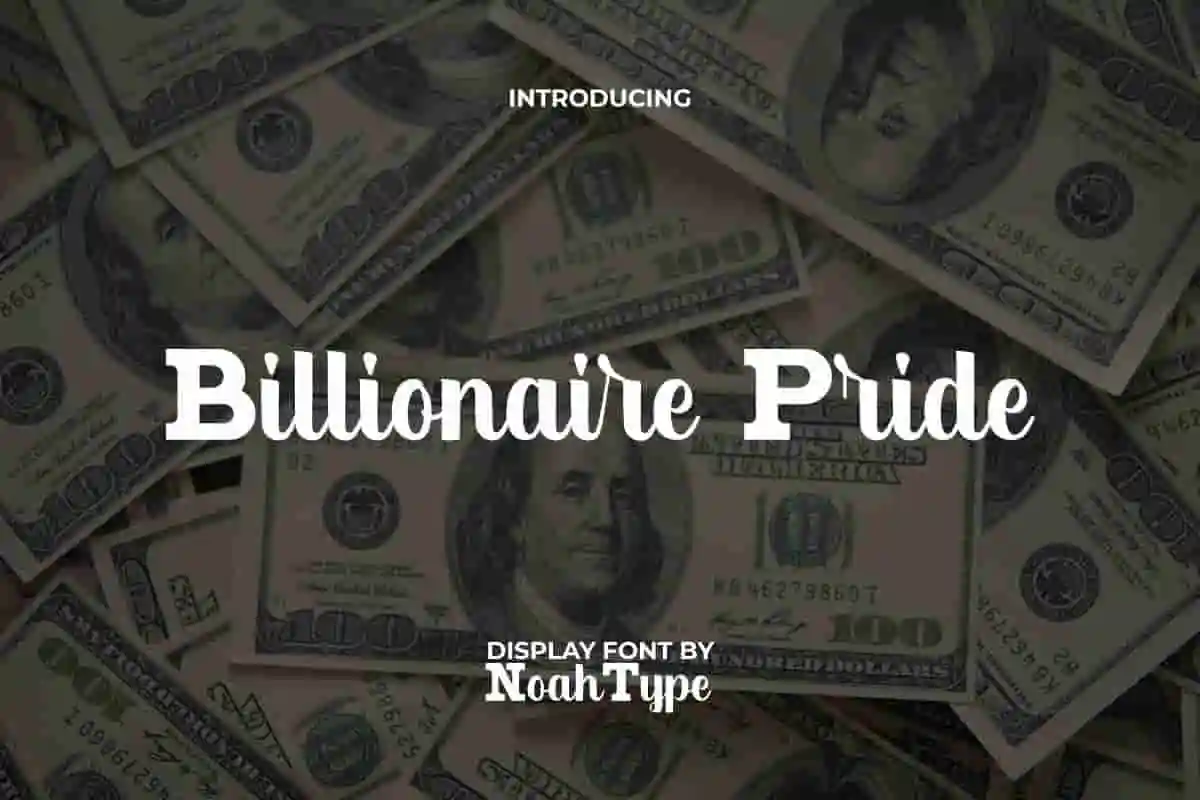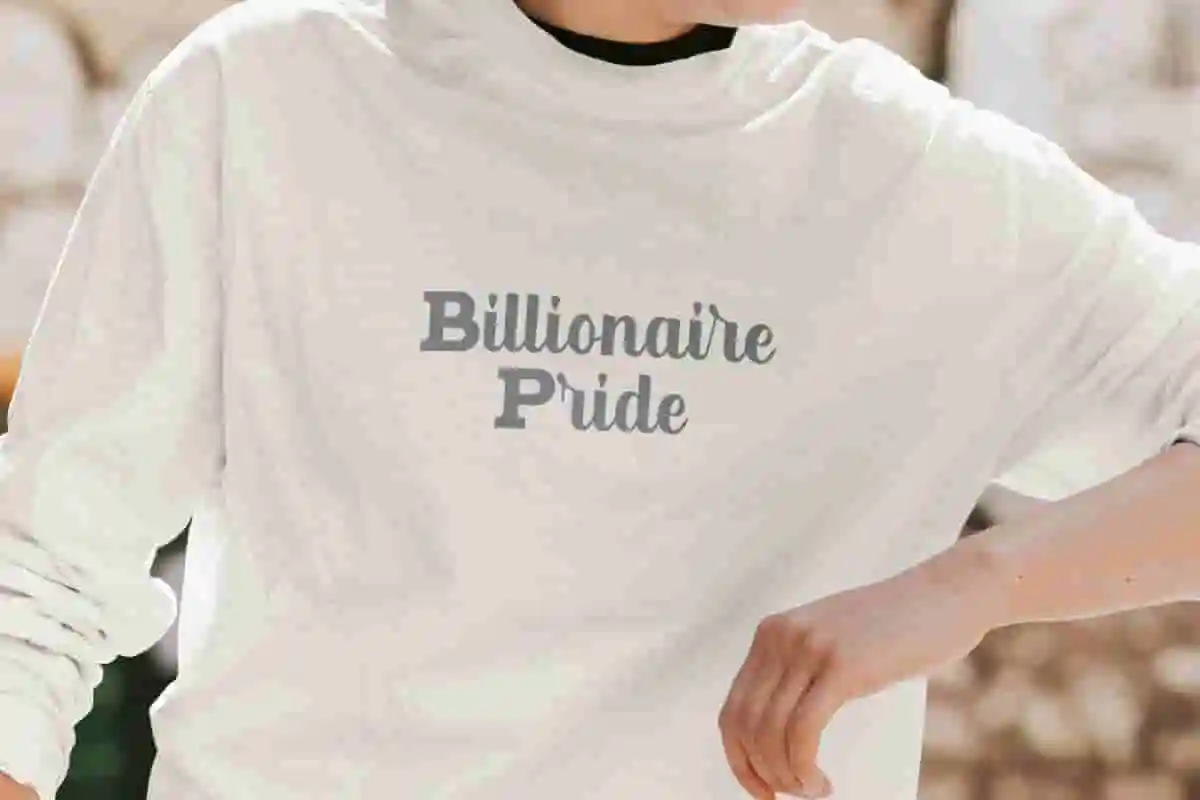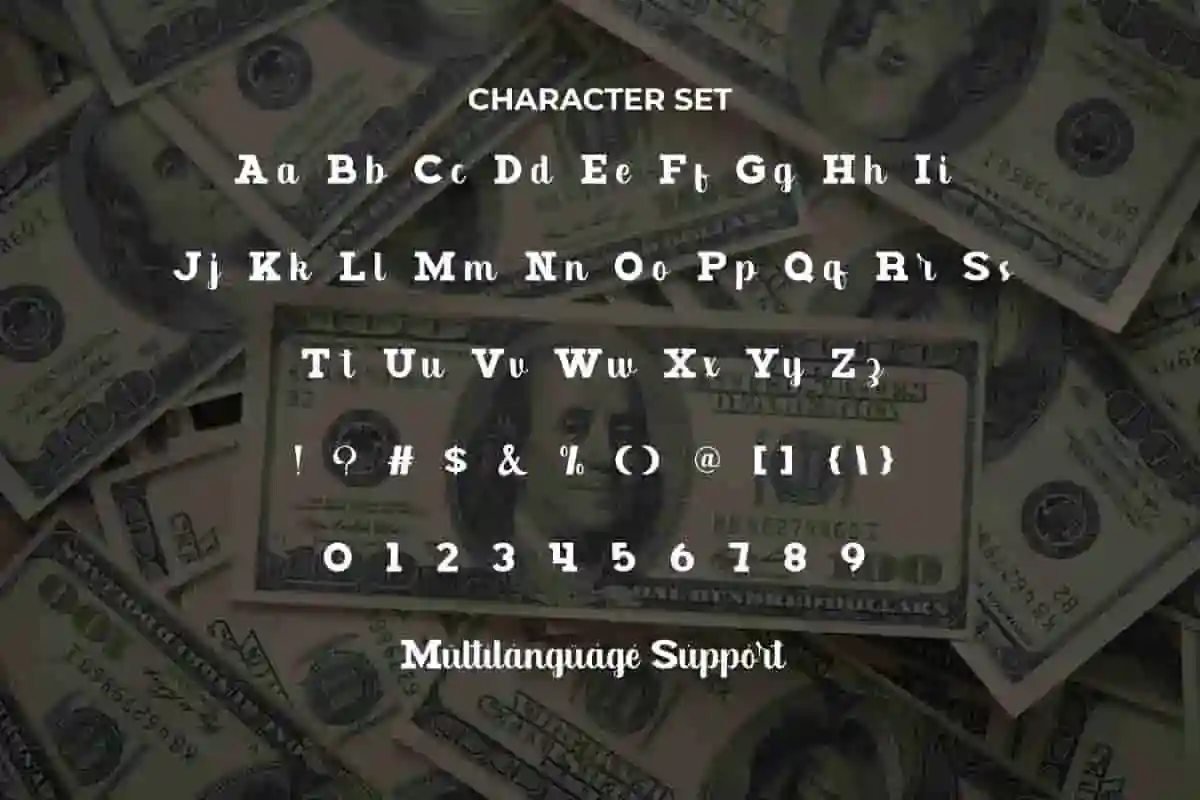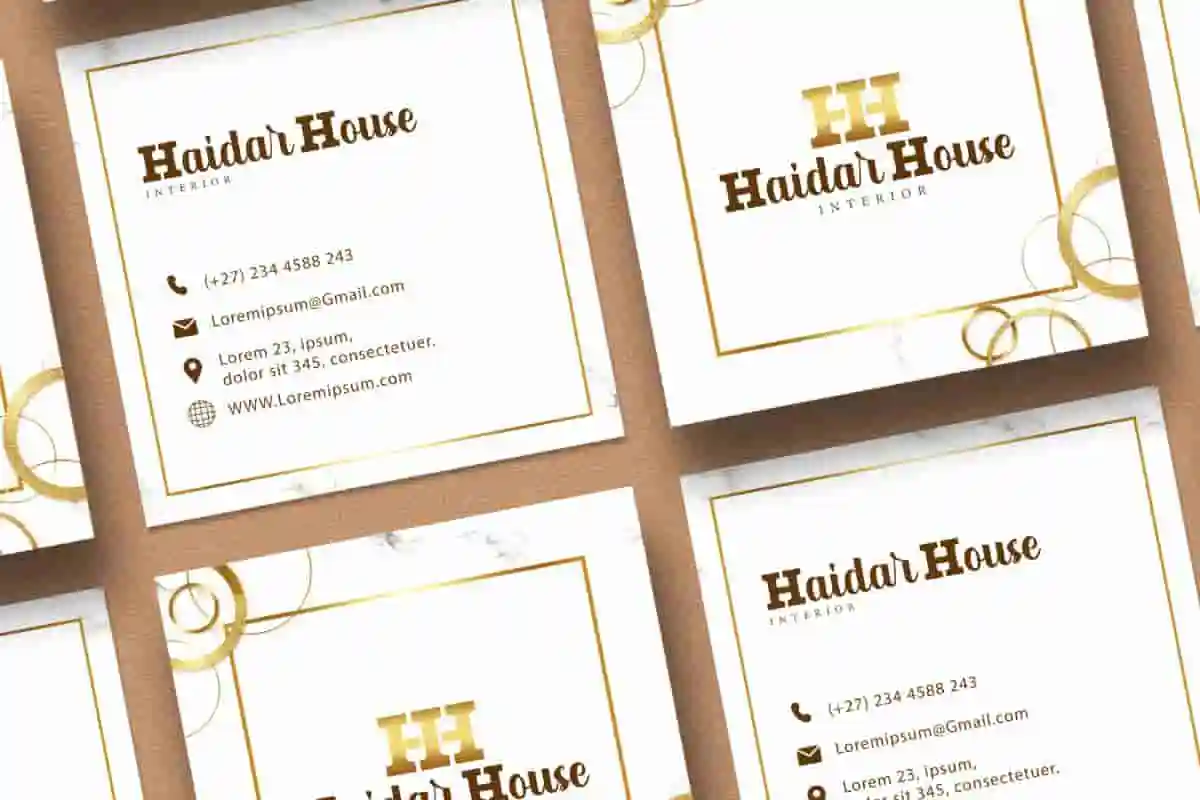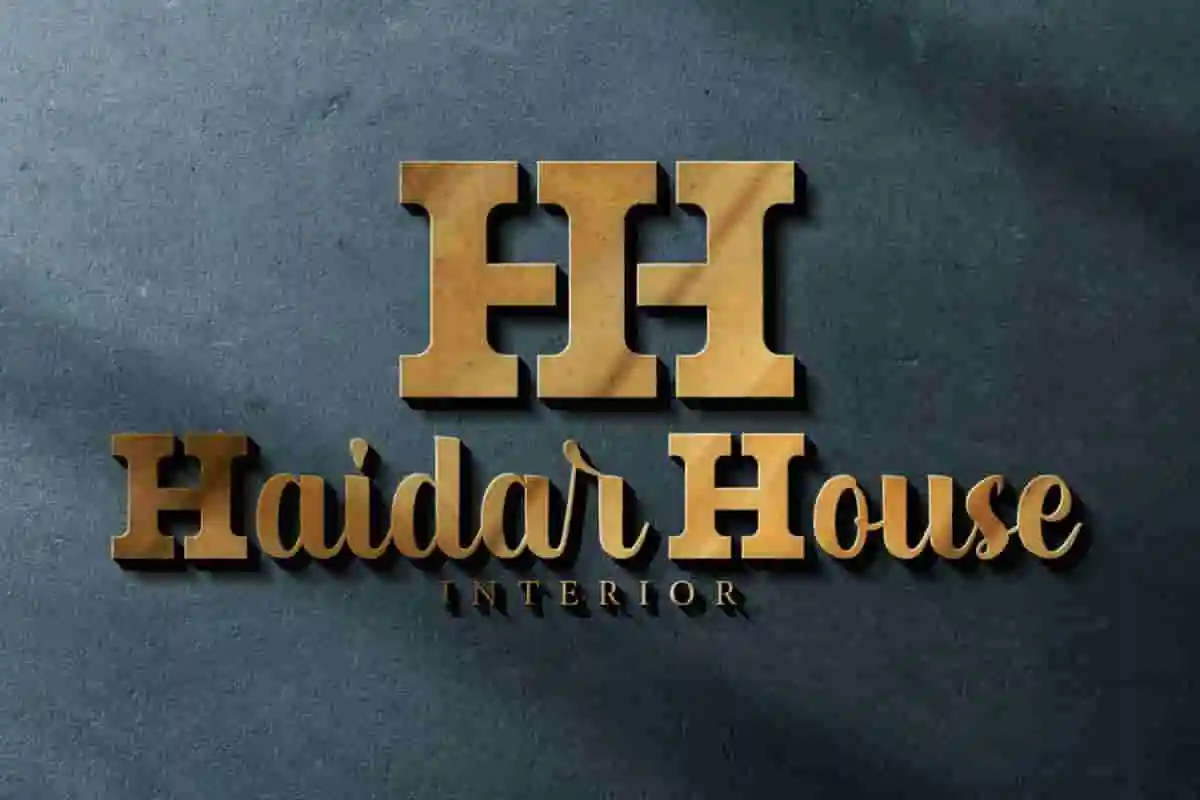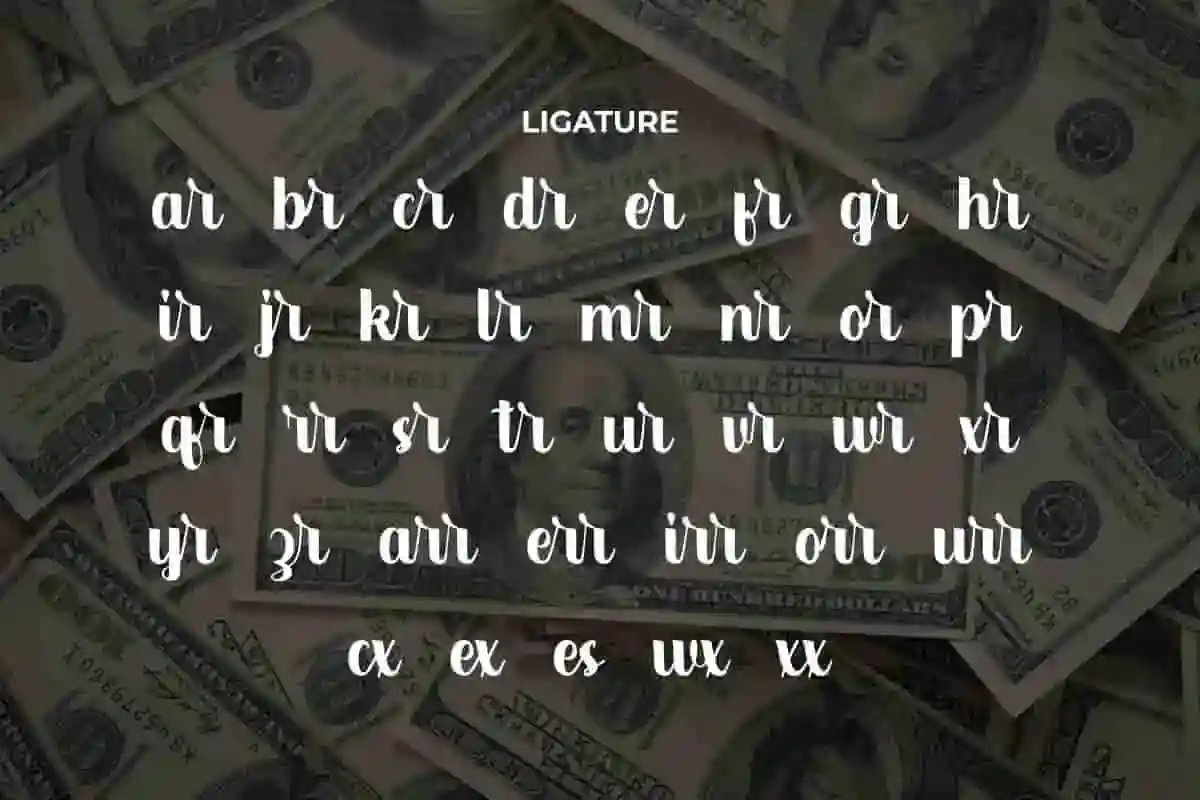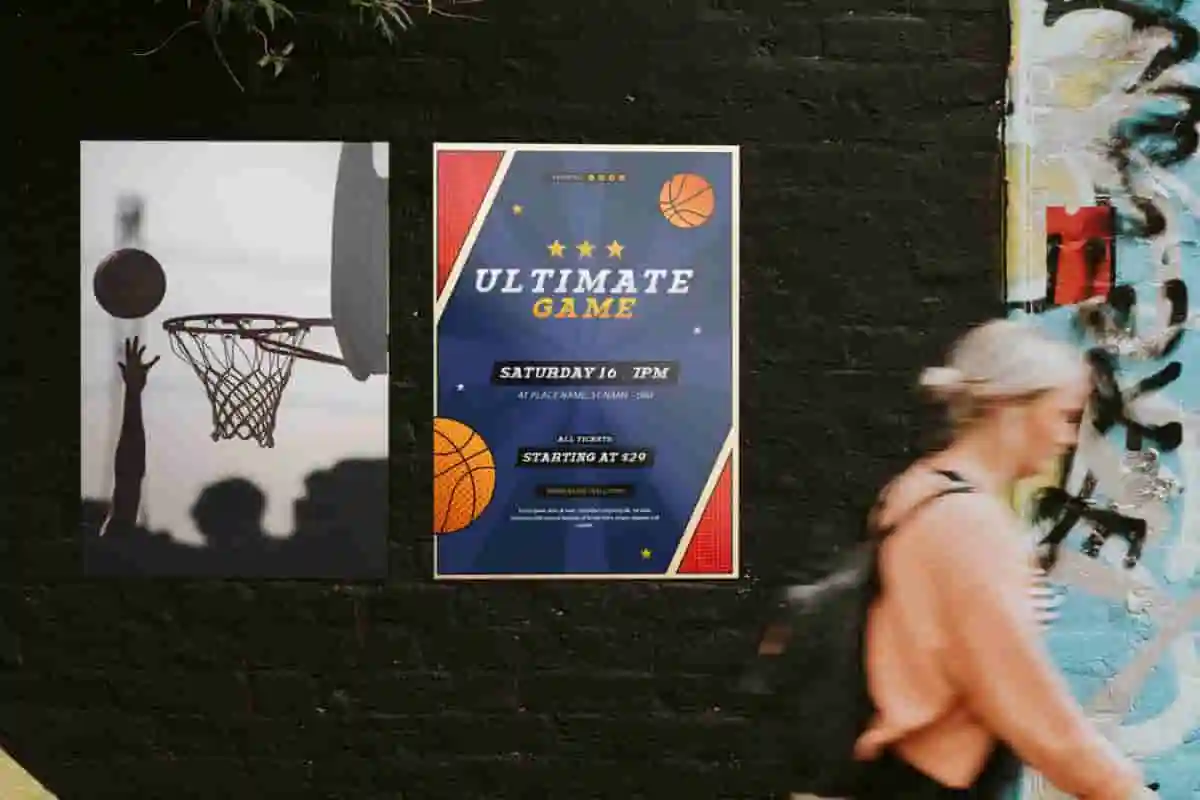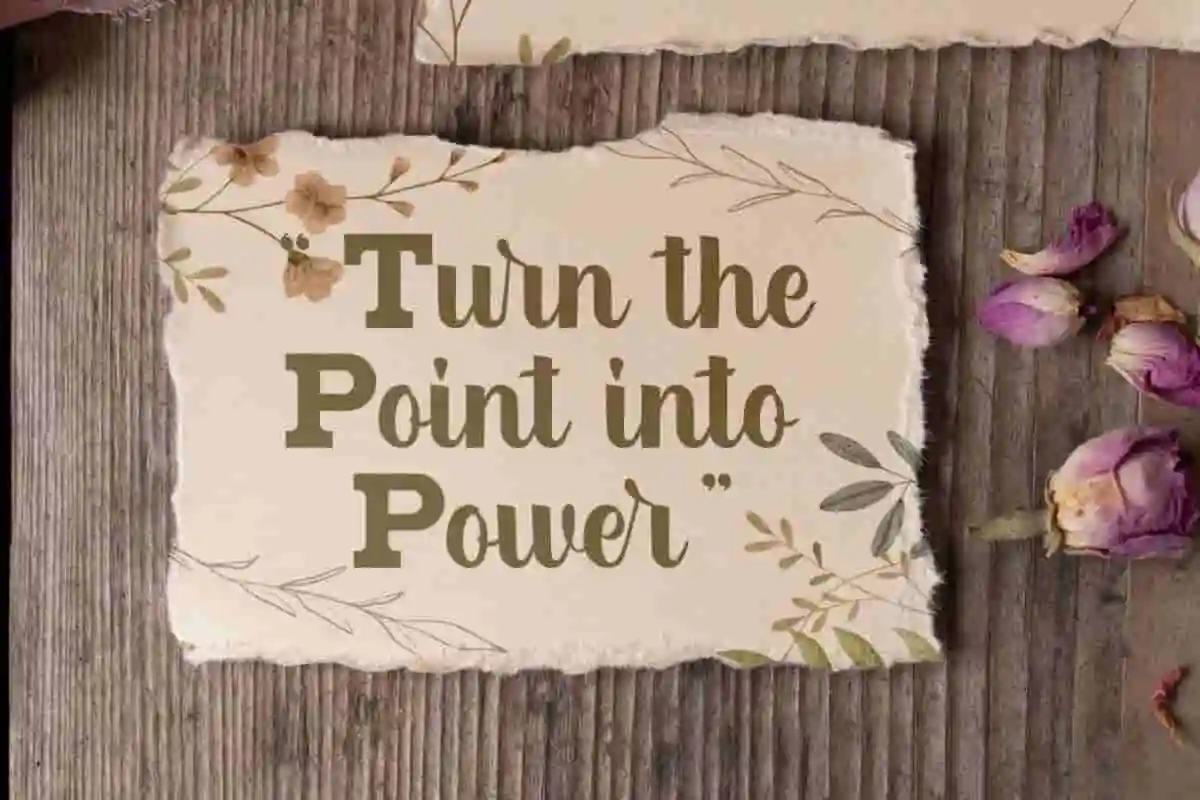
Billionaire Pride Font is a unique display font by NoahType. This font has a good combination of strong uppercase and lowercase like handwriting. It will be good for any designs, such as brand image, business card, cover, custom design, invitation, label, menu, poster, product packaging, quote, signage, stationery, web, and more!
Billionaire Pride Font includes full set of Uppercase and Lowercase Basic Characters, Numerals, Punctuation, and Ligature for lowercase only. The characters of this font will give your design tough looks, also a perfect choice for many industries, such as advertisement, café, event or festival, fashion, game, movie, printing, publishing, sport, etc.